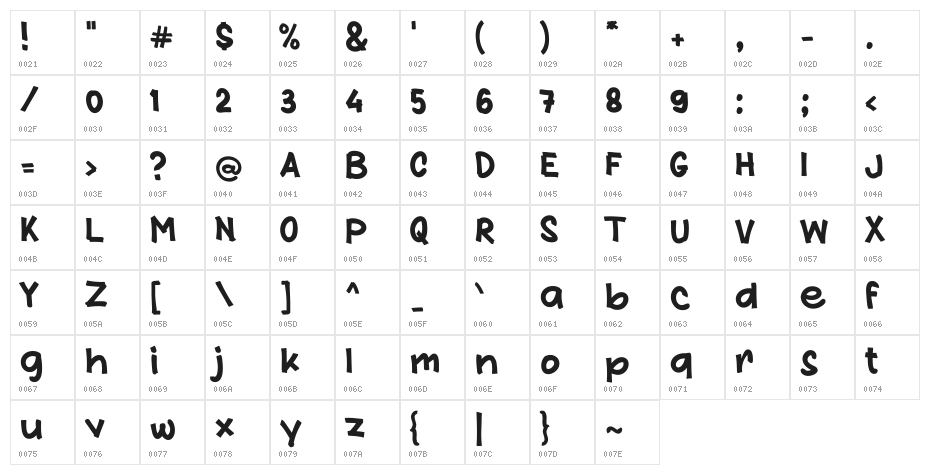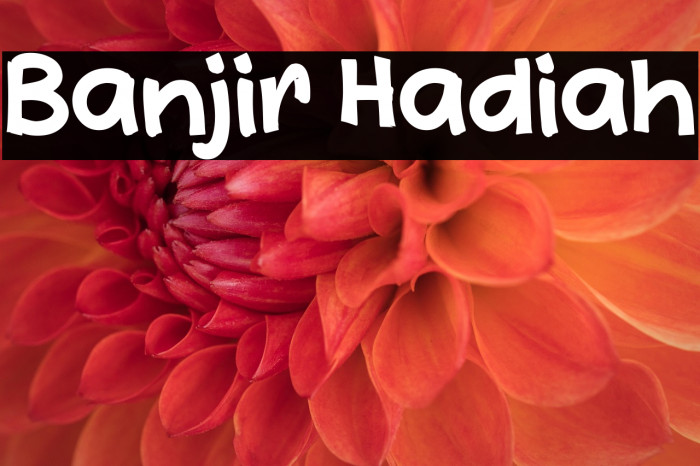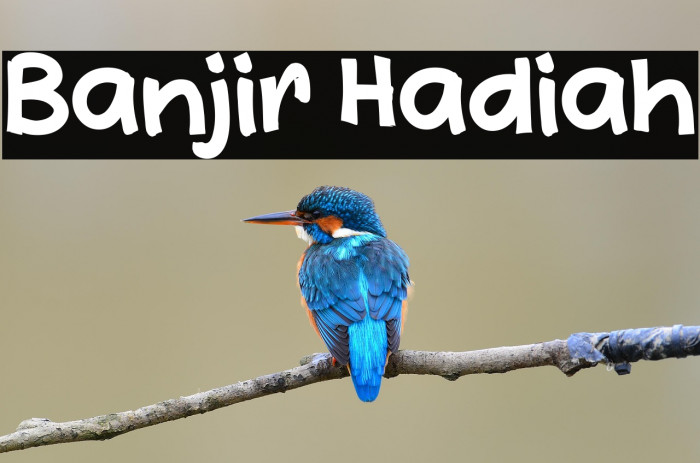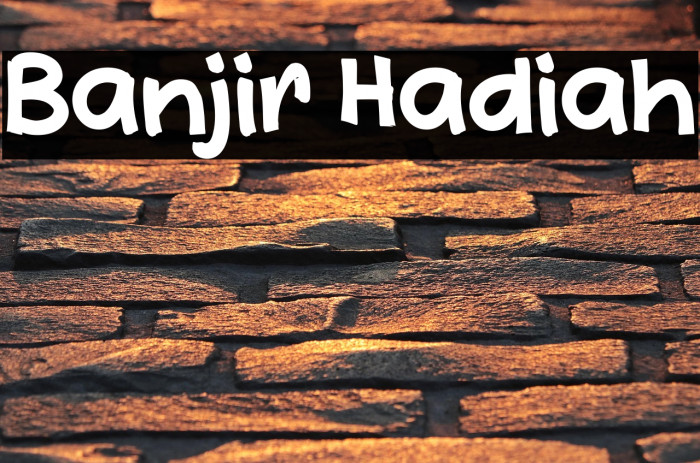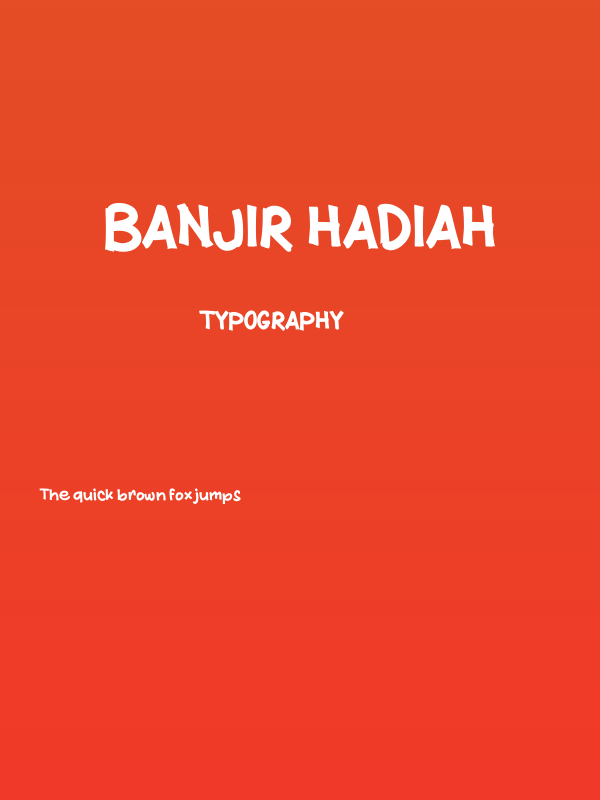
Banjir Hadiah Font
Banjir Hadiah Description
This playful and bold font features a hand-drawn aesthetic with irregular, slightly exaggerated strokes that give it a lively and informal appearance. The characters are rounded and thick, with a whimsical touch that adds a sense of fun and creativity. The uppercase and lowercase letters maintain a consistent style, with the uppercase being slightly more pronounced. Numbers and special characters follow the same playful design, making them easily recognizable and cohesive with the overall style. The font's unique charm makes it suitable for projects that require a personal and engaging touch.